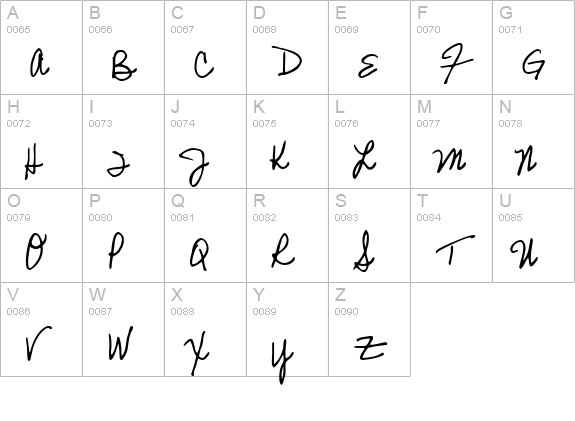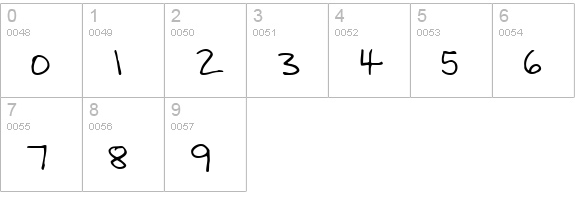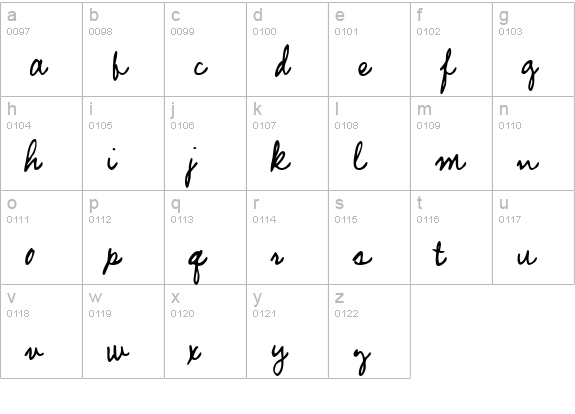
Mariette Tryout Font Details
Mariette Tryout is a stunningly elegant font that exudes sophistication and charm. Its delicate curves and graceful letterforms make it the perfect choice for projects that require a touch of grace and refinement. Whether you're designing wedding invitations, creating a logo for a high-end brand, or crafting a luxurious packaging design, Mariette Tryout will elevate your work to new levels of elegance. This exquisite font offers a wide range of stylistic alternates and ligatures, allowing you to customize your designs and create a unique typographic experience. Each letter has been carefully crafted with attention to detail, resulting in a harmonious and balanced typeface that is pleasing to the eye. One of the best features of Mariette Tryout is that it is available for free download at FontsMarket.com. This means that you can access this beautiful font without any restrictions, making it perfect for both personal and commercial projects. Whether you're a professional designer or a hobbyist, Mariette Tryout gives you the opportunity to add a touch of sophistication to your work without breaking the bank. Download Mariette Tryout today and let its timeless elegance transform your designs. Its versatility and beauty make it a must-have font for anyone looking to add a touch of class to their projects. Don't miss out on this opportunity to elevate your typography game - visit FontsMarket.com and get Mariette Tryout for free.